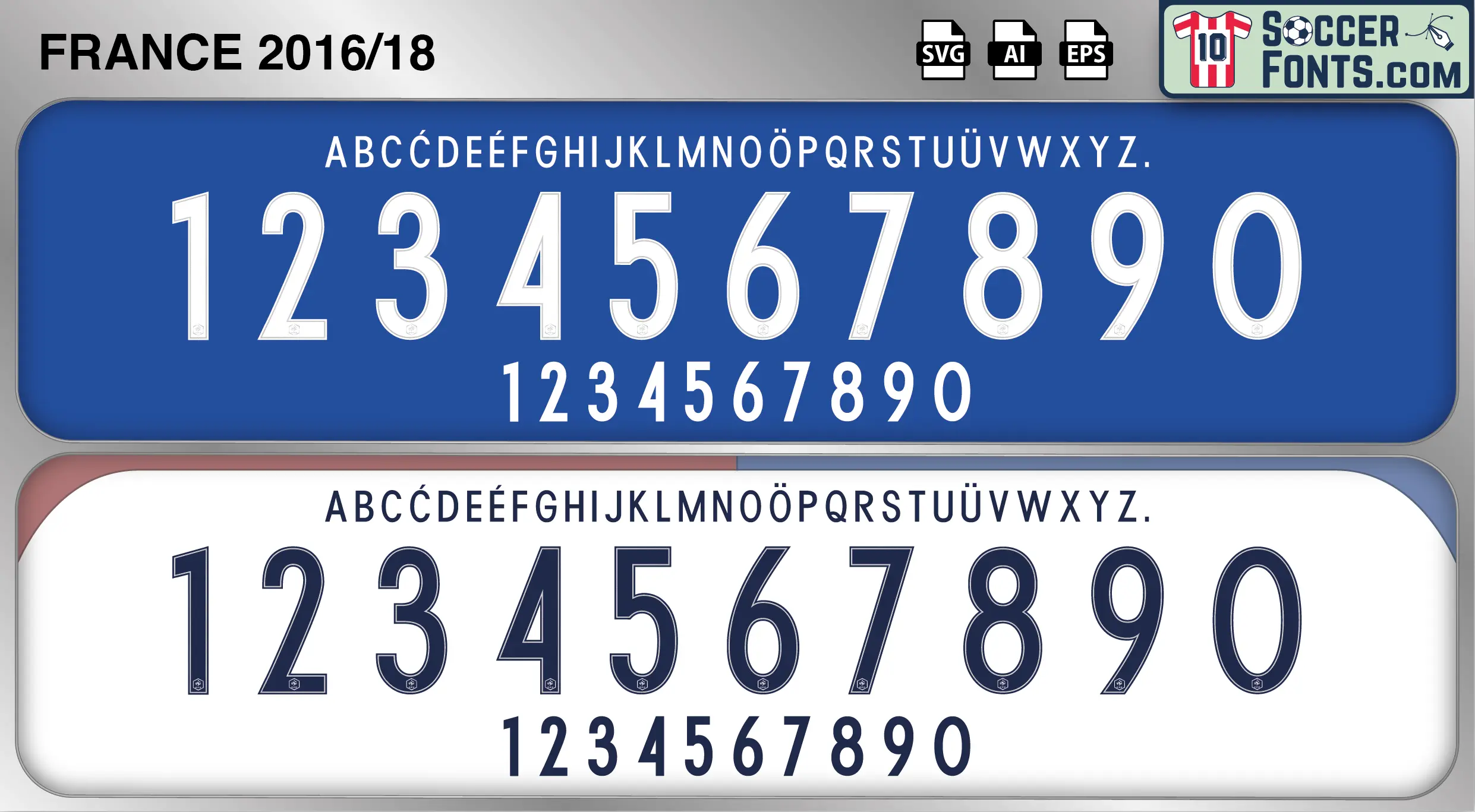
France 2016-18 Font
The France 2016-18 font is an editable soccer jersey lettering design in vector format inspired by the France kit style used during the 2016-18 football seasons. This football font artwork is prepared for football shirt recreations, custom jersey projects, football kit mockups and sports graphic design workflows.
The 2016-18 period began with France hosting UEFA EURO 2016 and featured the emergence of a generation that would soon conquer world football. Led by players such as Antoine Griezmann, Paul Pogba, Hugo Lloris, Olivier Giroud, N’Golo Kanté and Dimitri Payet, France reached the final of the European Championship and demonstrated the depth of talent available to the national team. In the years that followed, younger stars including Kylian Mbappé, Ousmane Dembélé, Benjamin Pavard and Lucas Hernandez became increasingly important as Didier Deschamps continued building a squad capable of competing for the biggest trophies in football.
The France 2016-18 font became associated with one of the most successful transitions in international football history. France shirts from this era remain especially popular among football shirt collectors because of their connection with UEFA EURO 2016 and the road to the 2018 FIFA World Cup. The France 2016-18 font reflects a period when France successfully combined experience and youth, creating a team that would soon achieve international glory and establish itself as the dominant force in world football.